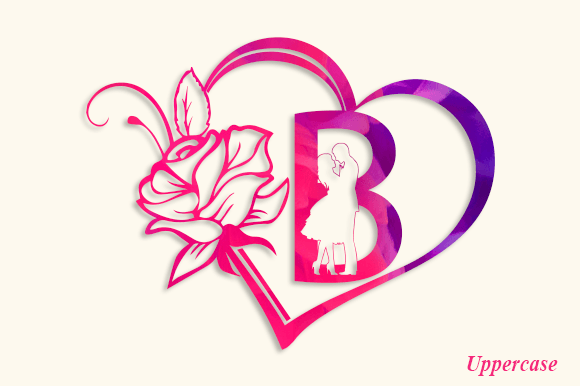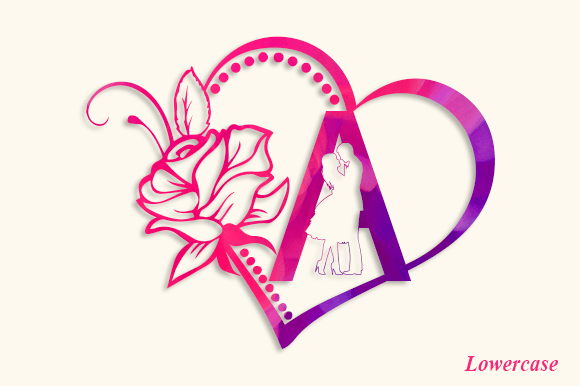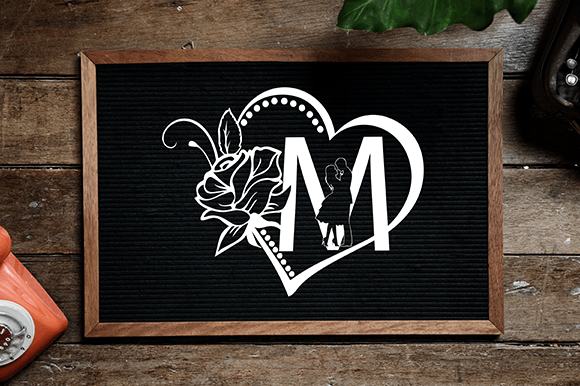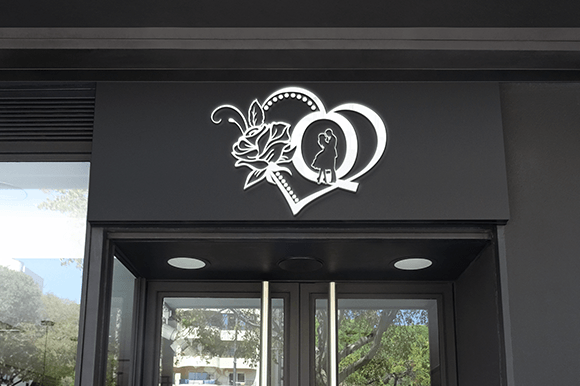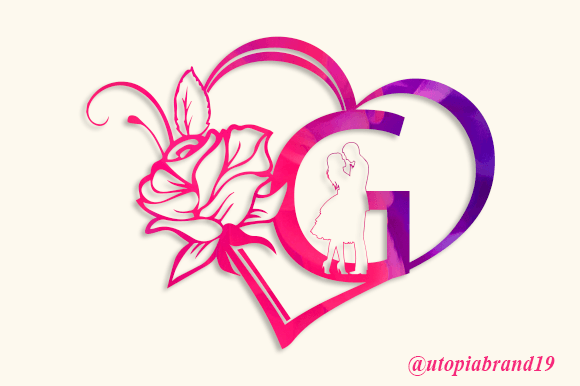
Introduction to Mi Amor Monogram Font
Make your Valentine’s Day unforgettable with Mi Amor Monogram.
This romantic decorative font will help you transform your special moments into something truly memorable Write a heartfelt love message on a monogrammed card, create a loving coupon book, or hang a romantic poster with your initials.
Key Features of Mi Amor Monogram Font
Why Choose Mi Amor Monogram Font?
Mi Amor Monogram Font offers exceptional quality and versatility, making it a valuable addition to your design toolkit. Whether you’re creating for personal projects or commercial use, Mi Amor Monogram Font delivers professional results.